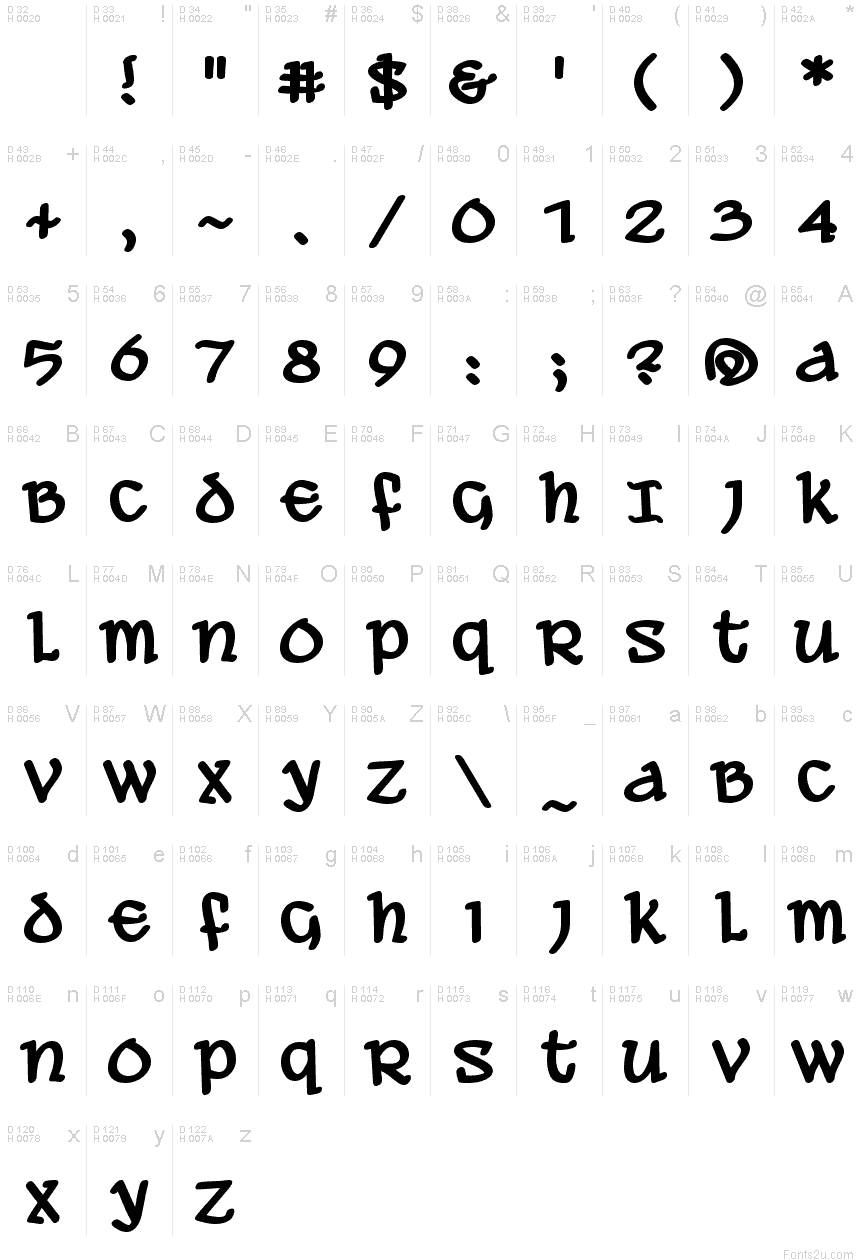
Ale and Wenches BB Bold
Ale and Wenches BB Bold font by Nate Piekos of Blambot is a free handwritten typeface that feels like it’s been scrawled across an old tavern sign after one too many mugs. Chunky, ink-heavy strokes and loose, medieval curves give it a rowdy fantasy energy, while the Ale and Wenches BB family’s irregular rhythm keeps it lively and human. It’s rough, dark, and a little mischievous—exactly the kind of lettering you’d expect above a creaking inn door.
Using Ale and Wenches BB Bold, you can instantly set the scene for RPG rulebooks, fantasy book covers, tavern or brewery branding, festival posters, board and card games, and themed menus. The letters lock together in a dense, textural wordshape that grabs attention without feeling slick or digital. This free font shines when used large for titles; pair it with a clean, unobtrusive sans serif for body copy to keep your layouts readable and grounded.